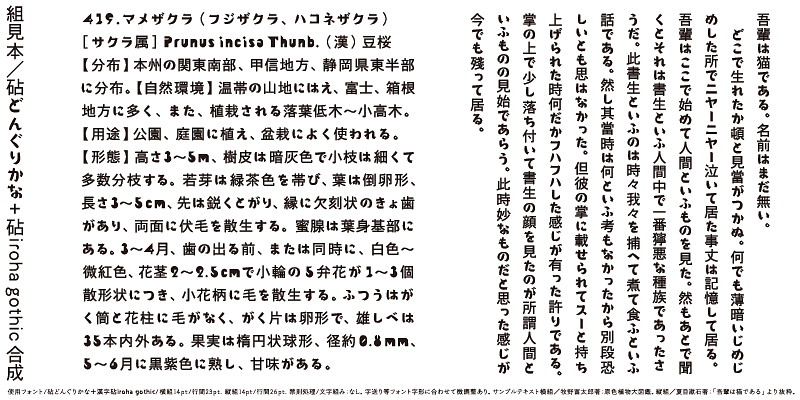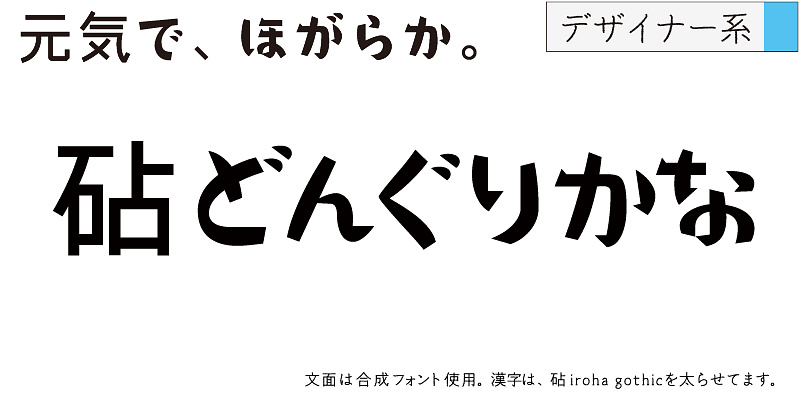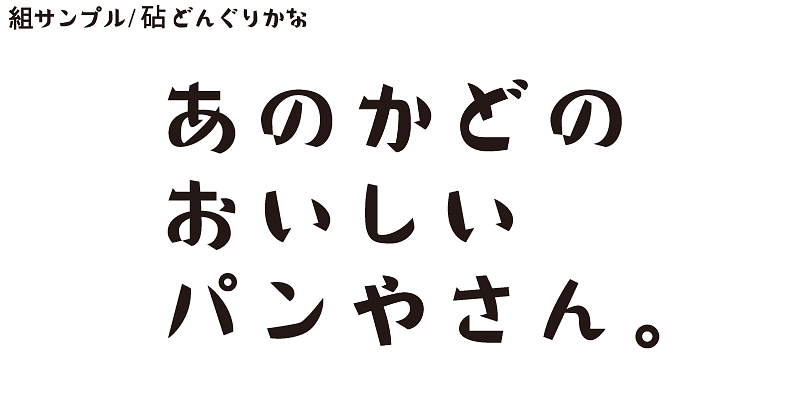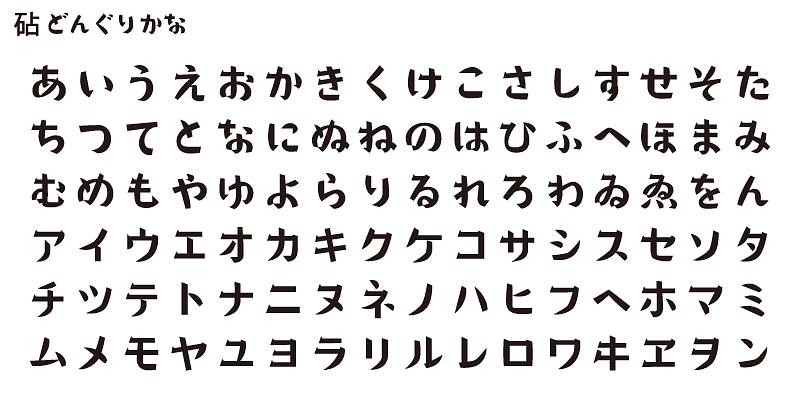
Donguri Kana is a kana-only sub-set font with the flavor of handwriting but made for the digital age. Its eye-catching effect makes the typeface suitable for logotypes, symbols, display lines. It provides a fresh look when combined with kanji (ideographic) characters from another font.
One characteristic of the Japanese language is that it has kana syllabic characters. Kana characters were invented in Japan to represent sounds in Japanese and translate texts imported from China into Japanese. Kana characters are needed to create Japanese words and expressions from kanji/Chinese ideographic characters. While there may be ambiguities, these words and expressions exhibit the warmth and gentleness of the lives of people living in the small and densely populated land of Japan.
Kinuta Font Factory’s believes that kana characters are the origin of written words in Japanese, and we think that improving kana characters will make Japanese text more attractive. On average, 60% of Japanese text consists of kana characters – changing the shape of these characters changes the visual appearance of the text. The possibilities for typographic expression using simple, dynamic and curvilinear kana characters are vast, and the richness of Japanese text depends on kana characters. This is the reason why Kinuta Font Factory offers many variations of kana typefaces.